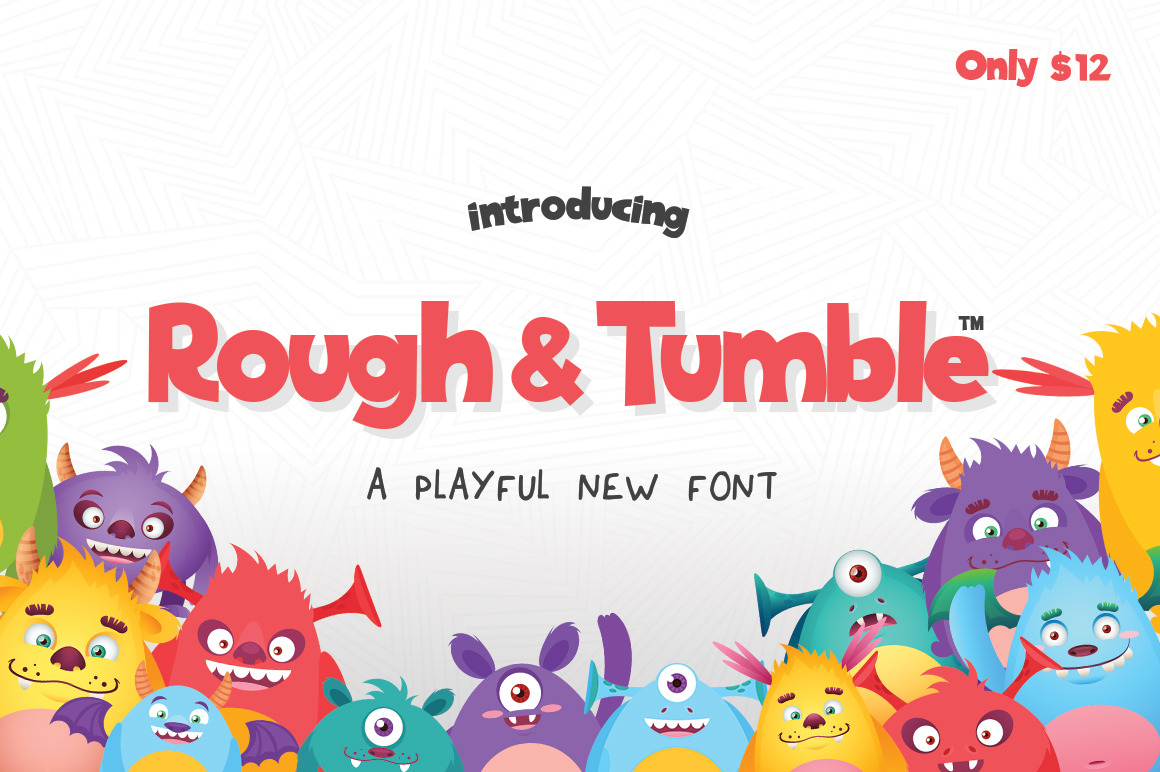
Rough and Tumble Font
Rough and Tumble is an energetic new font. Fun and happy, it will lift your designs and add a cheeky touch. Perfect for kids books, cute quotes and so much more!